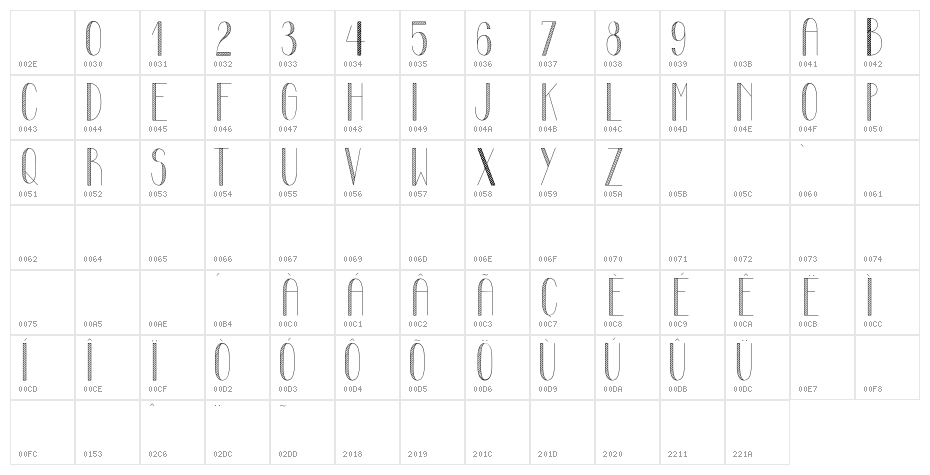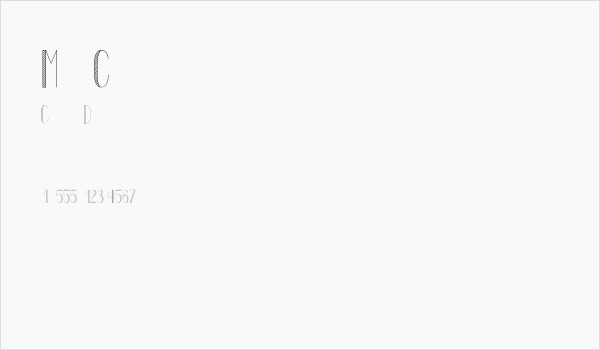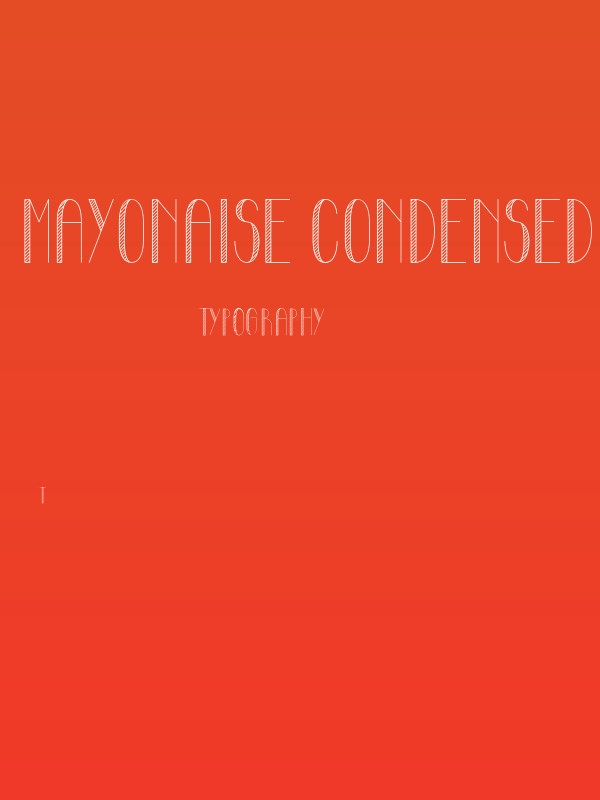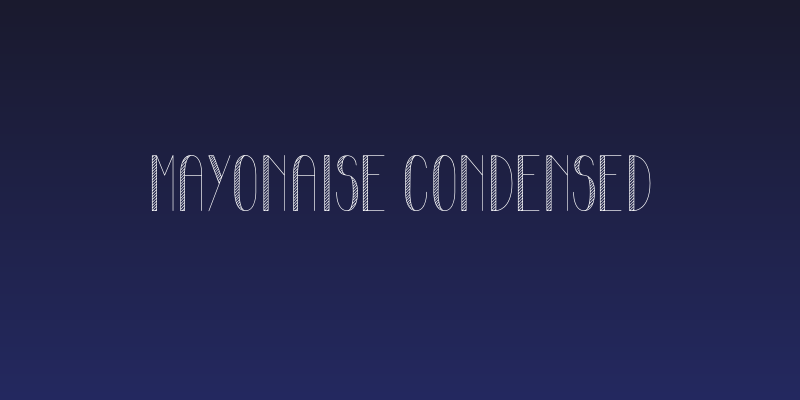
Mayonaise-Condensed Font
Mayonaise-Condensed Description
This font features a unique, decorative style with a condensed form and a distinct diagonal line pattern within each character. The uppercase letters are tall and narrow, giving a sleek and modern appearance. The numbers follow the same design, maintaining consistency across the character set. The font's artistic flair is evident in its intricate detailing, making it stand out in any design. The overall look is both contemporary and playful, suitable for creative projects that require a touch of elegance and uniqueness.
| Proposed Projects | Ideal for posters, branding, and packaging design where a modern and artistic touch is desired. |